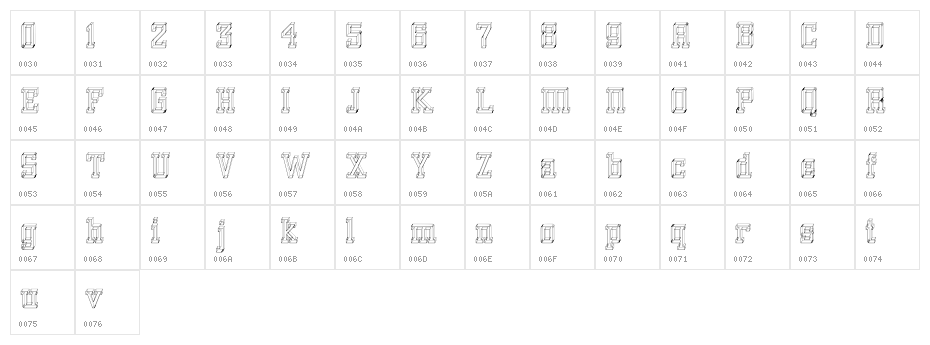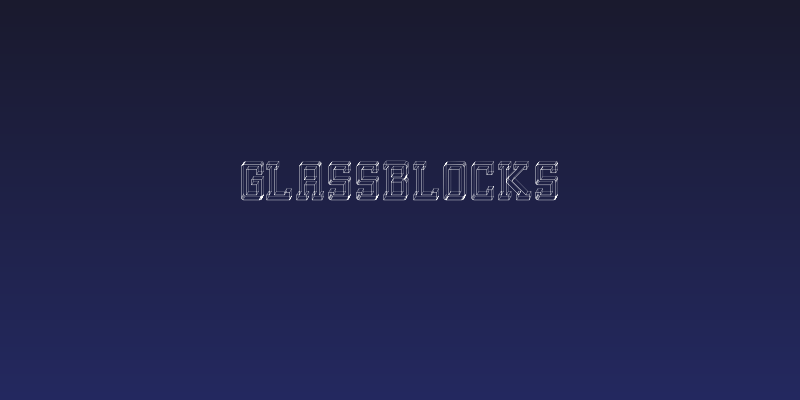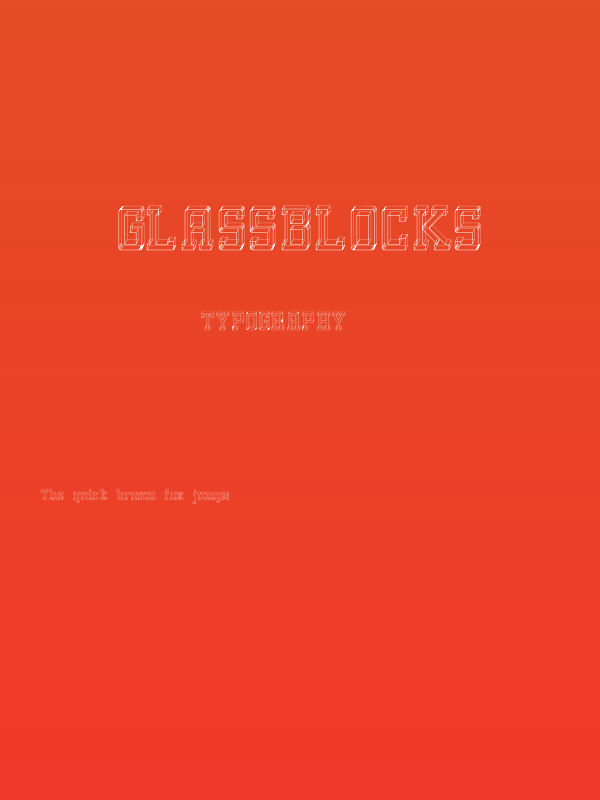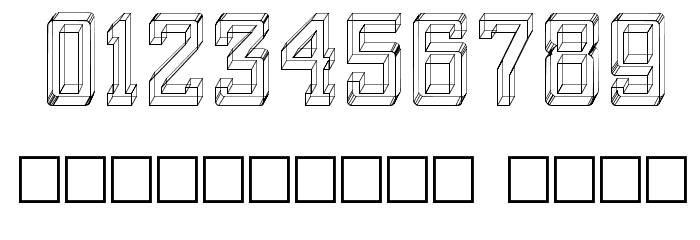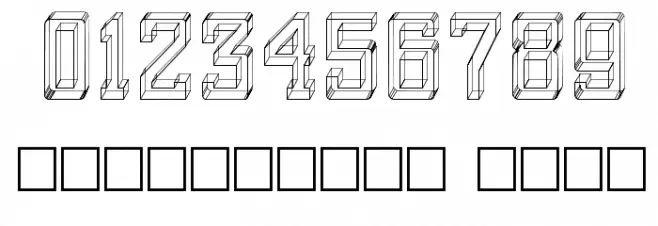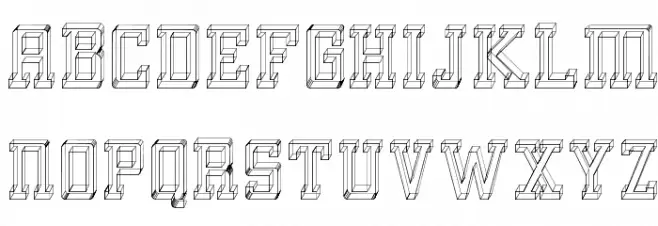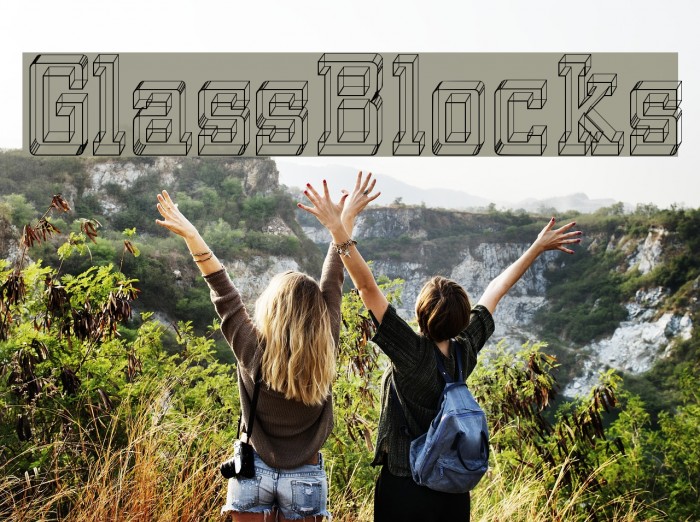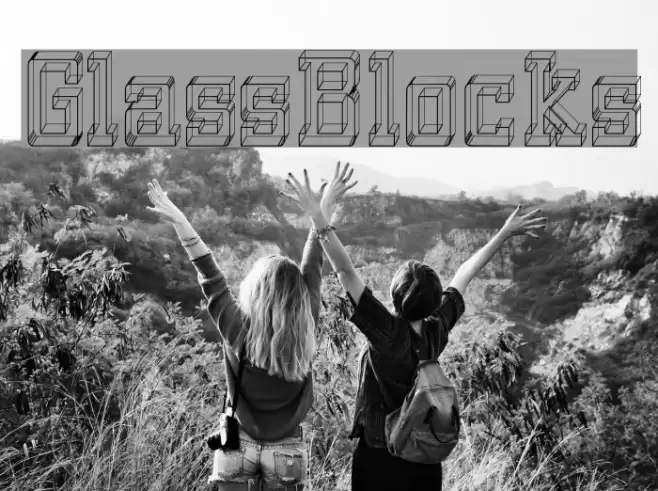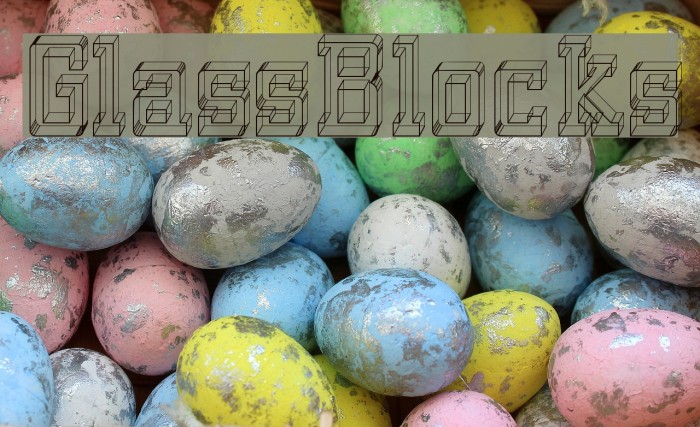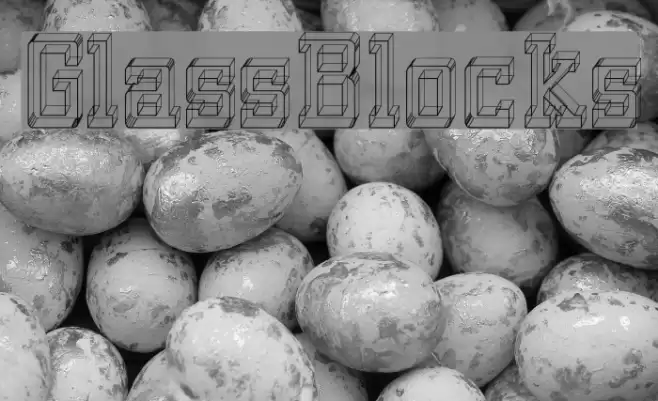
GlassBlocks Font
GlassBlocks Description
This font features a unique 3D block design that gives each character a glass-like appearance. The letters are constructed with bold outlines and internal lines that create a sense of depth and dimension. The uppercase and lowercase letters maintain a consistent style, with sharp angles and geometric precision. The numerals and special characters follow the same design principles, ensuring uniformity across the font. This font's distinct style makes it stand out, offering a modern and futuristic aesthetic that is both eye-catching and versatile.
| Proposed Projects | Ideal for futuristic designs, tech branding, video game titles, and digital art projects. |